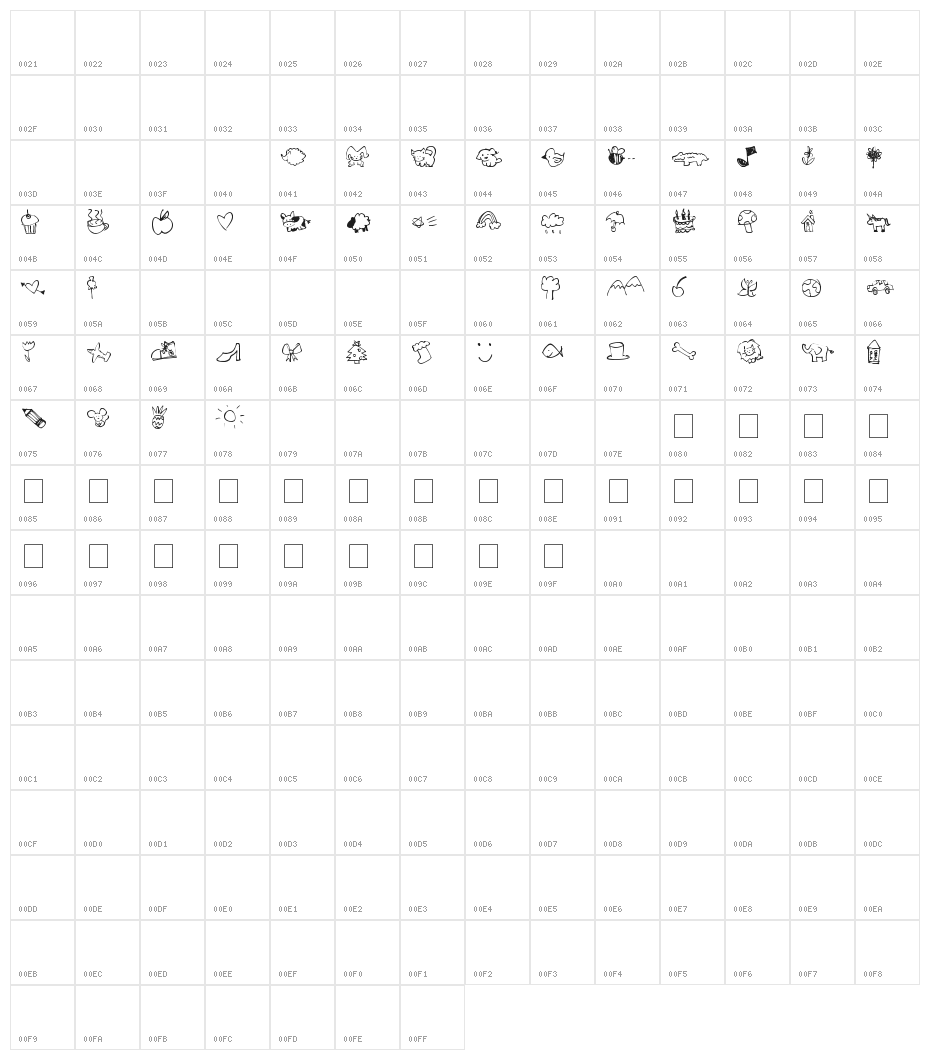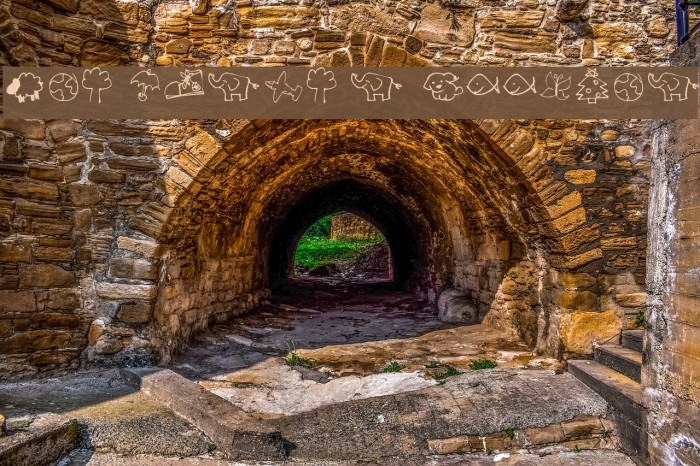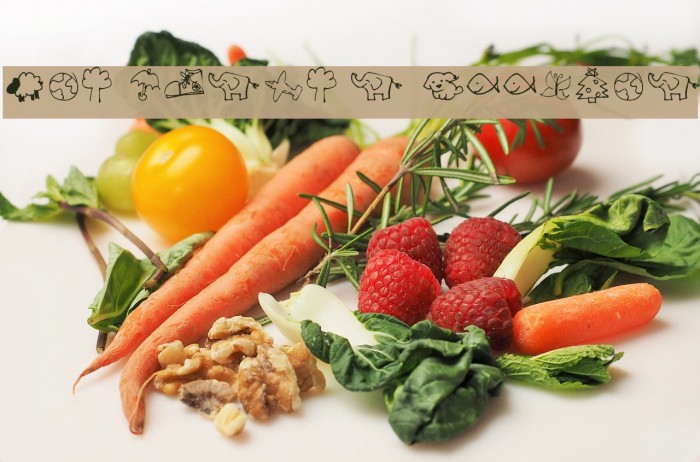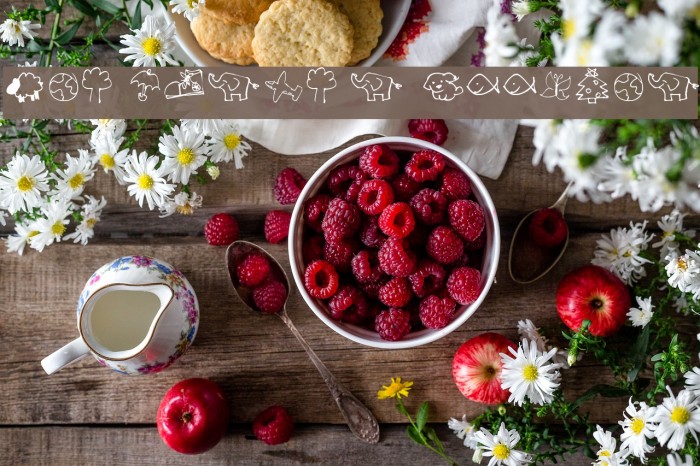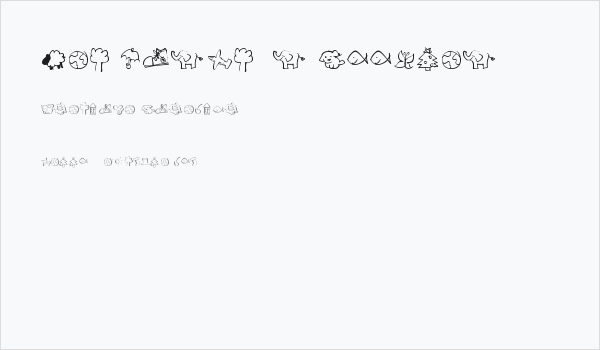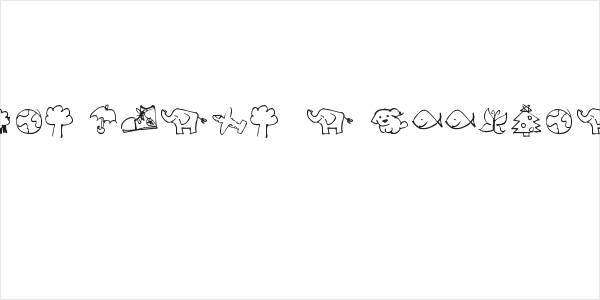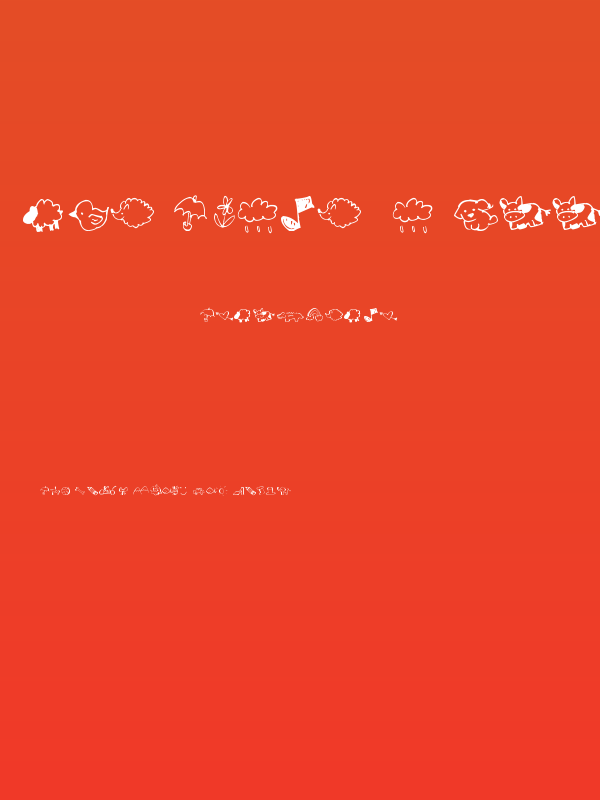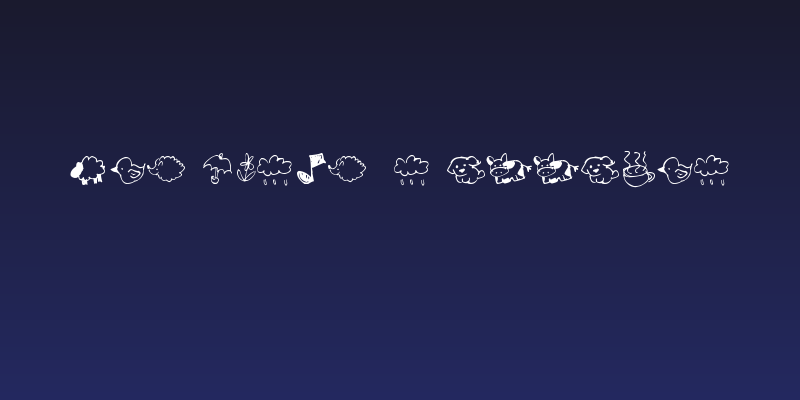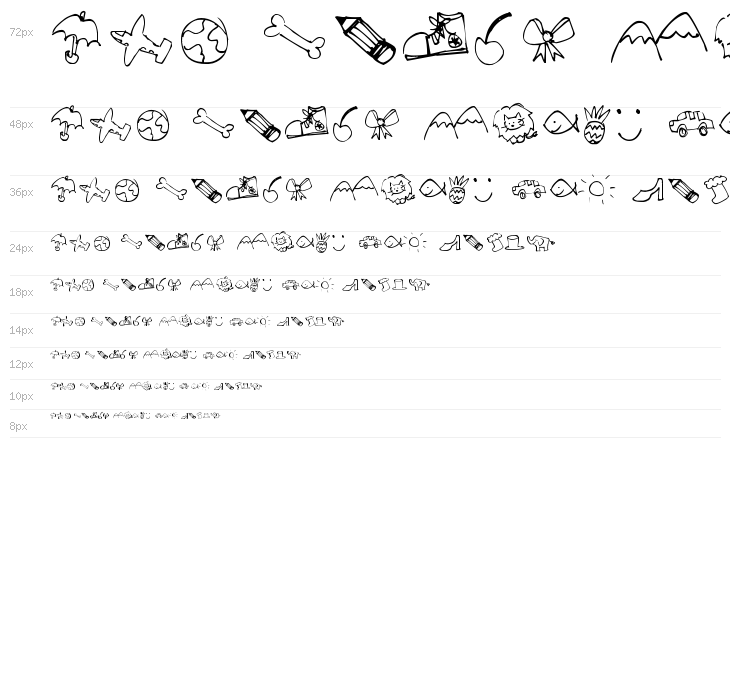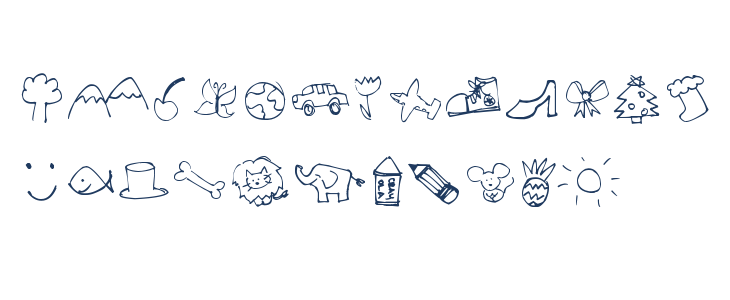
Pea Tisha's Doodles Font
Pea Tisha's Doodles Description
This is a playful and whimsical collection of doodles featuring a variety of charming and quirky illustrations. The designs include animals, nature elements, and everyday objects, all rendered in a hand-drawn style that exudes a sense of fun and creativity. Each doodle is unique, with a simplistic yet expressive line work that captures the essence of each subject. The overall style is casual and lighthearted, making it perfect for projects that require a touch of personality and warmth. These doodles can be used to add a playful element to designs, whether in digital or print media.
| Overall Style | Playful and Whimsical |
| Use Case | Decorative elements, Illustrations |
| Proposed Projects | Ideal for children's books, greeting cards, scrapbooking, and playful branding materials. |